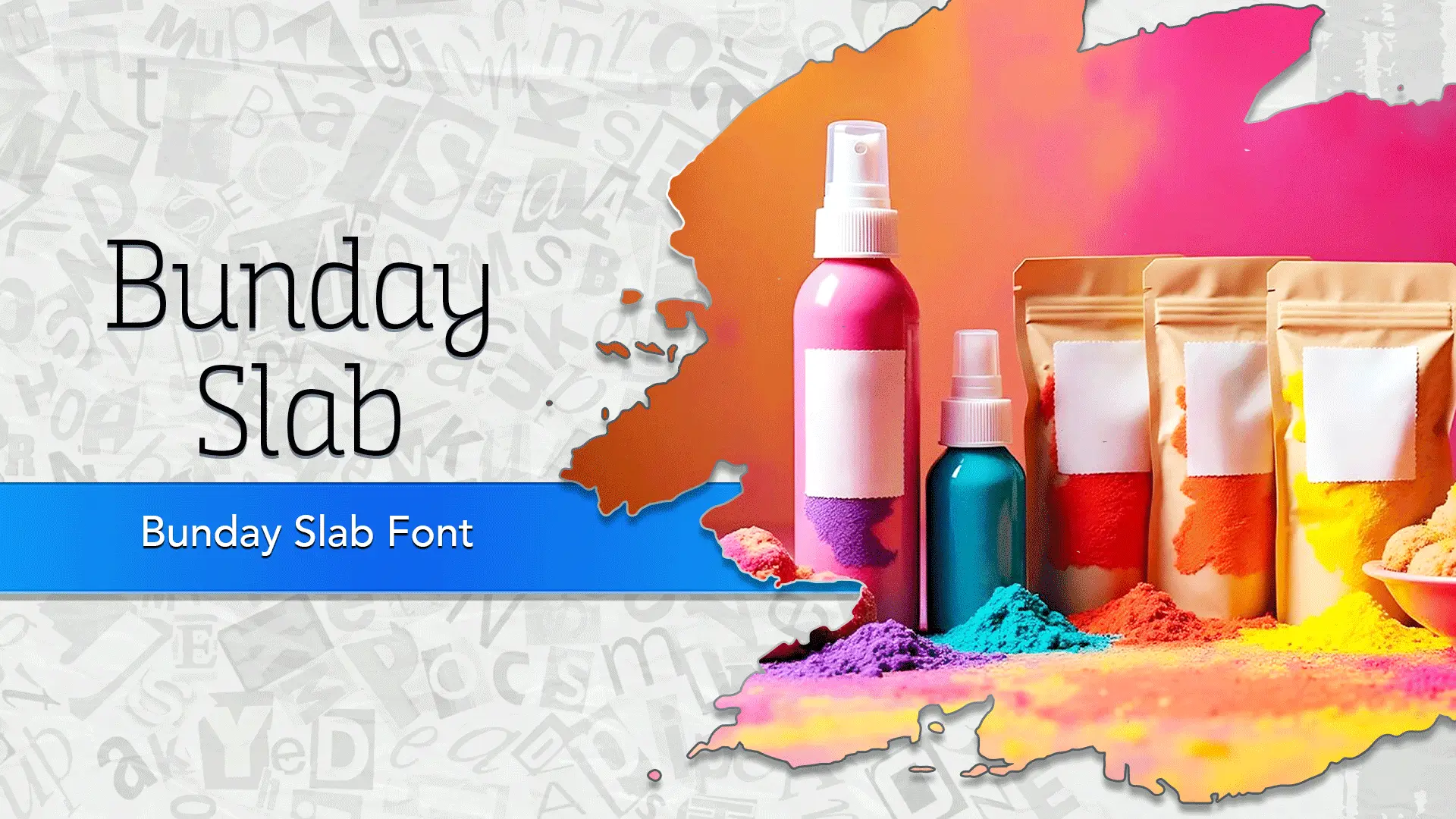
The Bunday Slab font family may be ideal for you if you enjoy working on an artistic design project. The lively, expressive look of this typeface, which was created by Buntype, makes it ideal for Company logos, Product branding, Packaging design, Headlines and Titles(Magazine and newspaper headlines, Website and blog titles, Posters and flyers, Advertisements), Body text in magazines or books, Subheadings and captions, and other light-hearted visual projects.
Bold, Light Up, Thin Italic are the three primary font styles of the Bunday Slab font family. You may build dynamic, visually appealing text layouts with the distinct flair that each style offers. With crisp, readable lines and a relaxed tone.